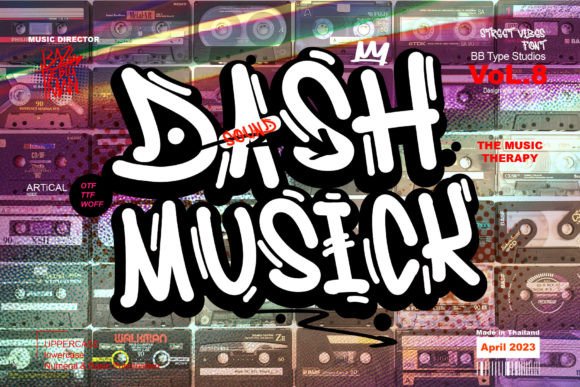
Dash Musick Font: The Ultimate Graffiti-Styled Display Font for Your Designs
Are you looking for a font that can add a cool street art vibe to your designs? Look no further than the Dash Musick Font. This awesome graffiti-styled display font is perfect for creating stunning designs that require a bold and edgy look. In this article, we’ll explore the features and benefits of the Dash Musick Font and how you can use it to take your designs to the next level.
What is Dash Musick Font?
Dash Musick Font is a graffiti-styled display font that is designed to give your designs a cool street art vibe. It has a unique and bold style that makes it perfect for use in a variety of designs, including t-shirts, sportswear, logos, advertisements, clothing, and more. The font is carefully crafted to ensure that it is easy to read and understand, making it a great choice for designers who want to create eye-catching designs that communicate their message effectively.
Features of Dash Musick Font
The Dash Musick Font has several features that make it a great choice for designers. Some of its key features include:
- Graffiti-styled design: The font has a unique graffiti-styled design that gives it a cool street art vibe.
- Bold and edgy look: The font has a bold and edgy look that makes it perfect for use in designs that require a strong and attention-grabbing style.
- Easy to read: Despite its bold style, the font is easy to read and understand, making it a great choice for designers who want to create designs that communicate their message effectively.
- Versatile: The font is versatile and can be used in a variety of designs, including t-shirts, sportswear, logos, advertisements, clothing, and more.
Benefits of Using Dash Musick Font
There are several benefits to using the Dash Musick Font in your designs. Some of the key benefits include:
- Unique and eye-catching designs: The font allows you to create unique and eye-catching designs that are sure to grab the attention of your audience.
- Cool street art vibe: The font gives your designs a cool street art vibe that is perfect for designers who want to create designs that are edgy and bold.
- Increased brand visibility: The font can help increase brand visibility by creating designs that are bold and attention-grabbing.
- Easy to use: The font is easy to use and can be easily integrated into your designs.
Design Ideas Using Dash Musick Font
The Dash Musick Font can be used in a variety of designs. Here are some design ideas to get you started:
- T-shirts and sportswear: Use the font to create bold and eye-catching designs for t-shirts and sportswear.
- Logos and branding: Use the font to create unique and memorable logos and branding materials.
- Advertisements: Use the font to create bold and attention-grabbing advertisements that grab the attention of your audience.
- Clothing and accessories: Use the font to create designs for clothing and accessories such as hats, bags, and phone cases.
Tips for Using Dash Musick Font
Here are some tips for using the Dash Musick Font:
- Experiment with different styles: Experiment with different styles and layouts to get the most out of the font.
- Use contrasting colors: Use contrasting colors to make your design stand out.
- Keep it simple: Keep your design simple and avoid cluttering it with too much text or graphics.
- Use the font consistently: Use the font consistently across all your designs to create a cohesive brand image.
In conclusion, the Dash Musick Font is a great choice for designers who want to create bold and eye-catching designs with a cool street art vibe. The font is versatile and can be used in a variety of designs, including t-shirts, sportswear, logos, advertisements, clothing, and more. With its unique graffiti-styled design and bold and edgy look, the Dash Musick Font is sure to grab the attention of your audience and help you achieve your design goals.